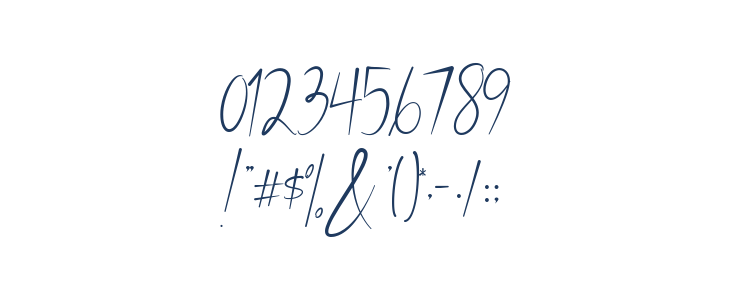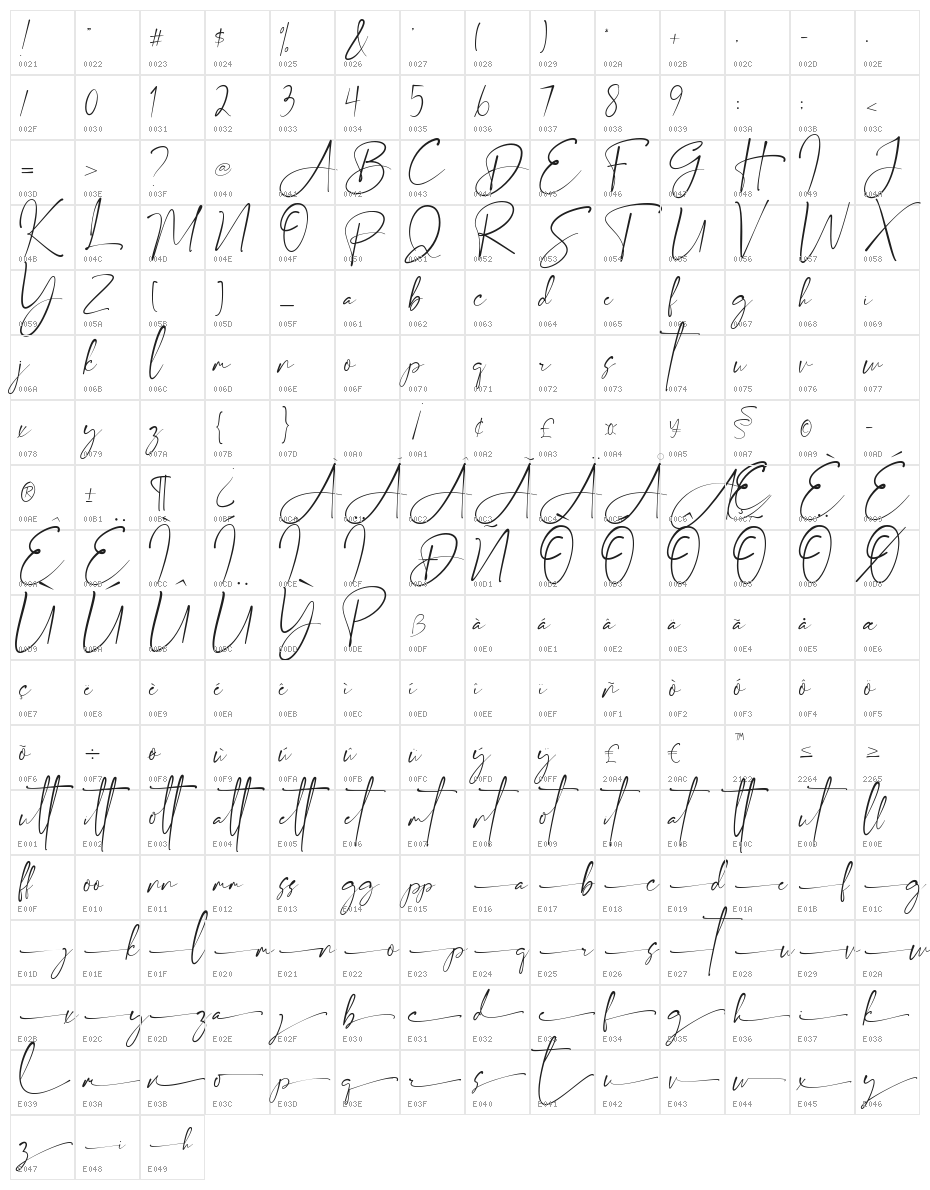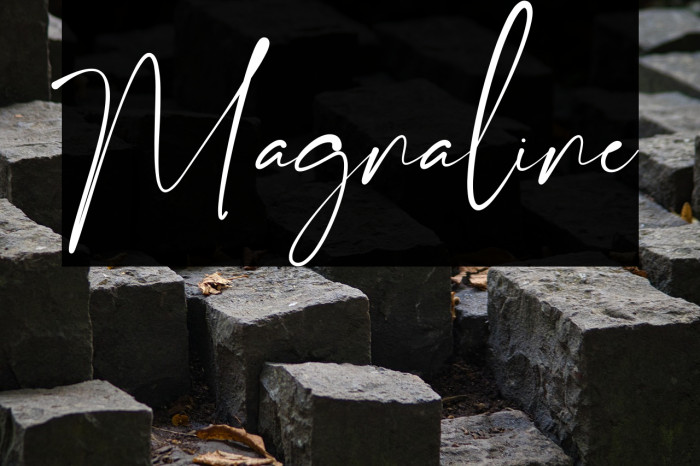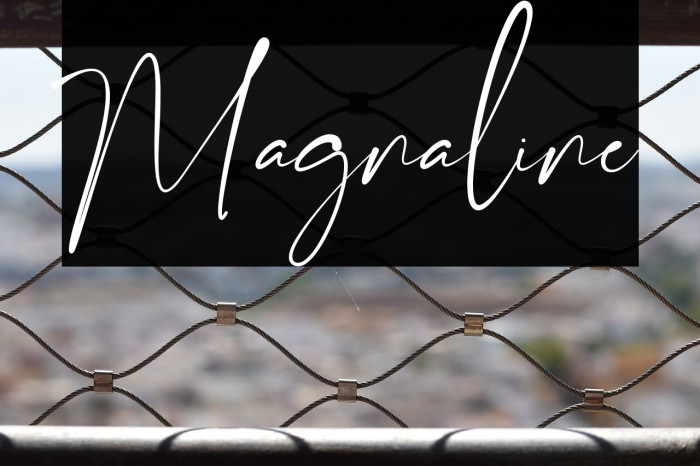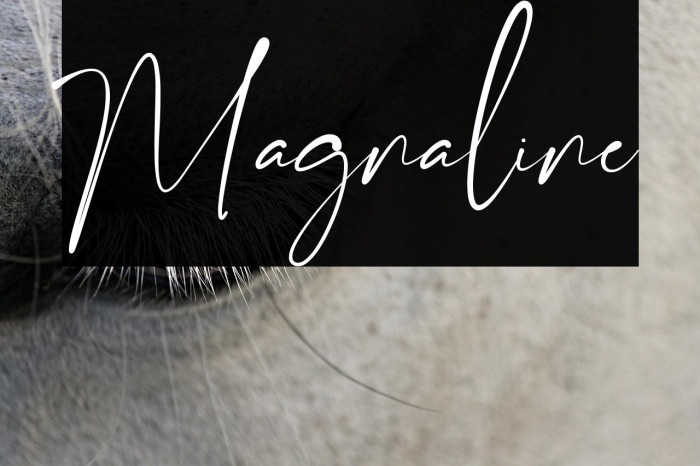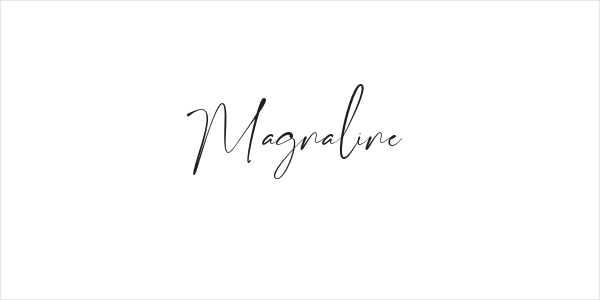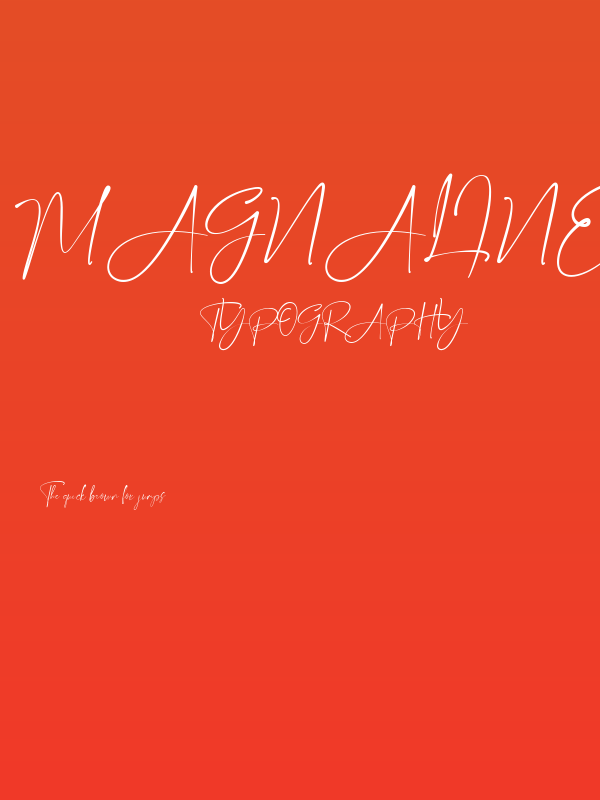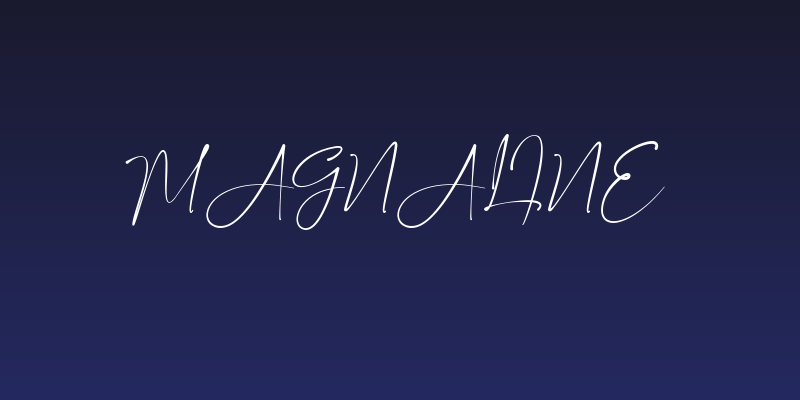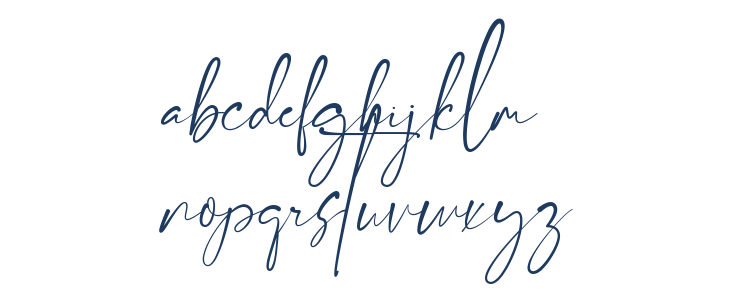
Magnaline Font
Magnaline Description
This font features a stylish and elegant script design, characterized by its fluid and flowing letterforms. The uppercase letters exhibit a sophisticated flair with elongated strokes and graceful curves, while the lowercase letters maintain a consistent and harmonious appearance. The numerals are distinct and easy to read, complementing the overall aesthetic. Special characters are thoughtfully designed to match the script's elegance, making this font suitable for a variety of creative projects. Its unique style is perfect for adding a touch of class and personality to any design.
| Categories | Script |
| Overall Style | Elegant |
| Use Case | Logos, Invitations, Branding |
| Proposed Projects | Ideal for wedding invitations, branding, logos, and elegant stationery. |